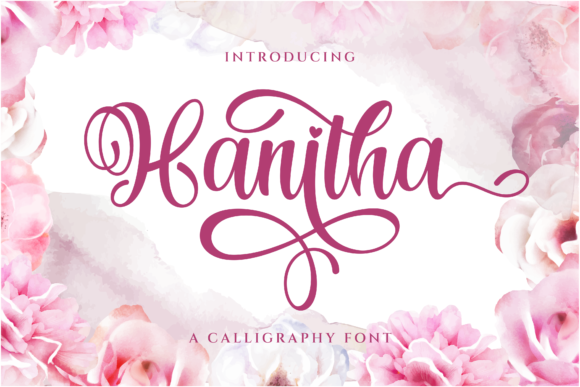
Looking for the perfect font for your next romantic project? Look no further than Hanitha Font! This beautiful script font, created by Graphicxell, is the ultimate choice for adding a touch of sweetness to any design.
With its soft, hand-lettered feel, Hanitha is the perfect choice for creating stunning wedding invitations, beautiful stationary art, eye-catching social media posts, and adorable greeting cards. Its authentic, organic look will make your designs feel personal and heartfelt, while its legibility ensures that your message is always clear.
As one of the best fonts for romance covers, Hanitha is the perfect choice for any project that requires a touch of romance and tenderness. Its delicate curves and elegant letterforms are sure to captivate your audience and create a memorable impression.